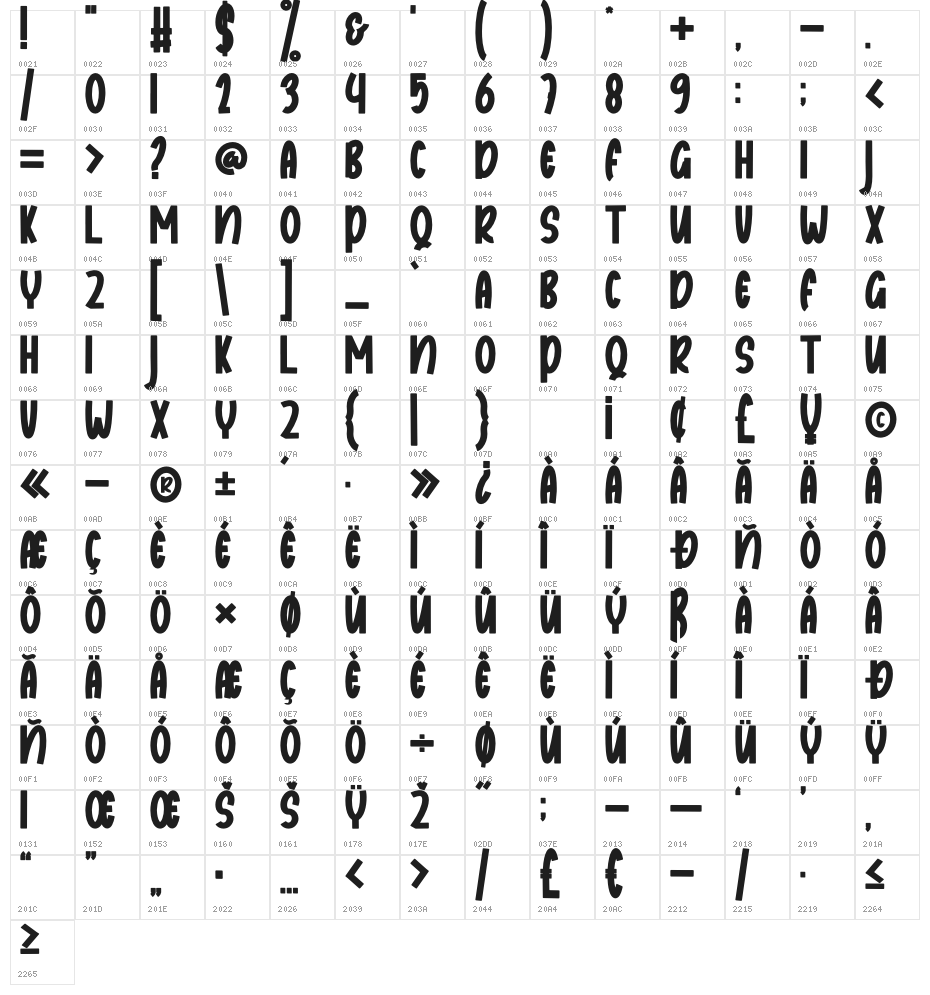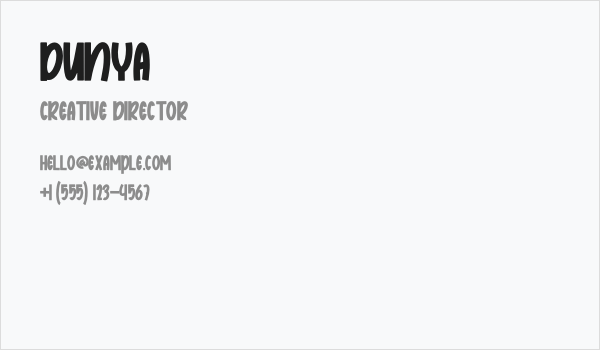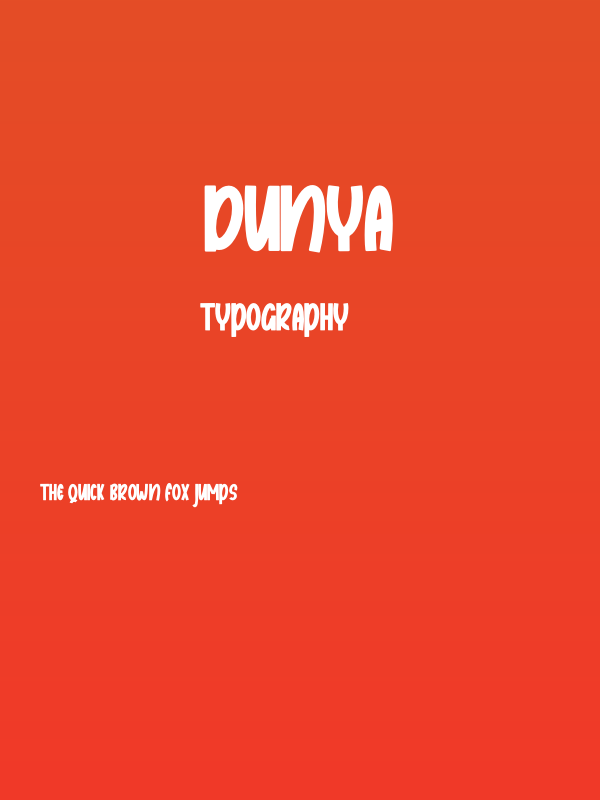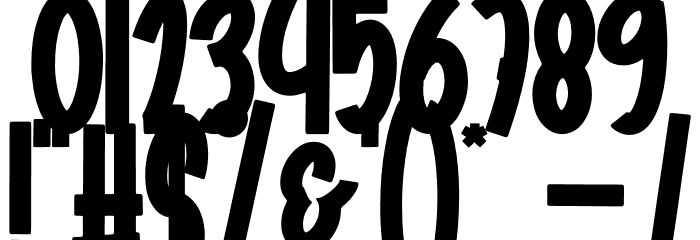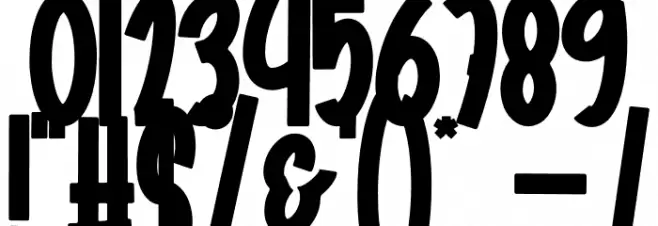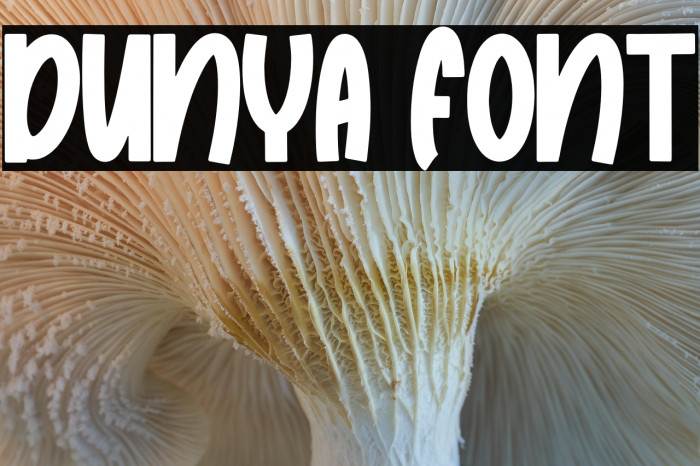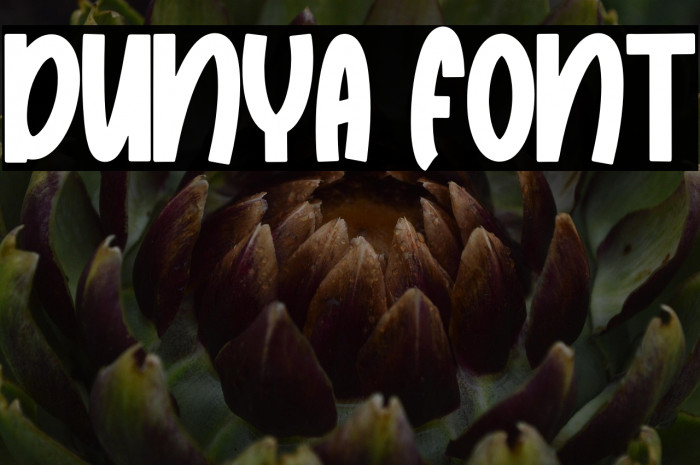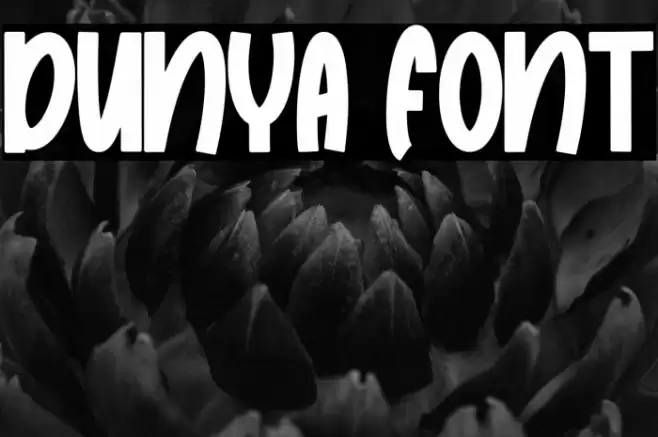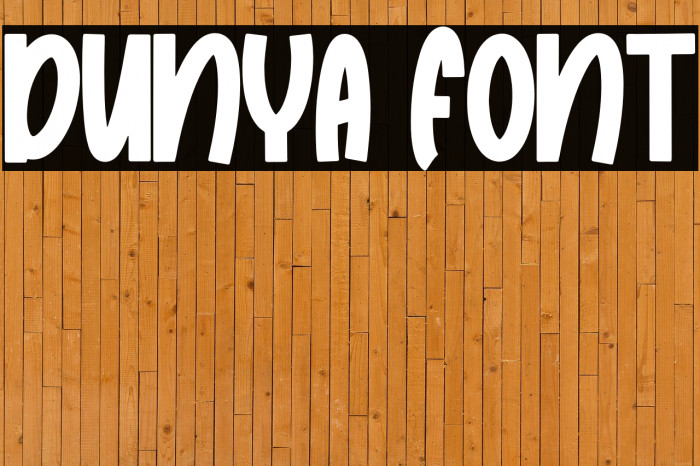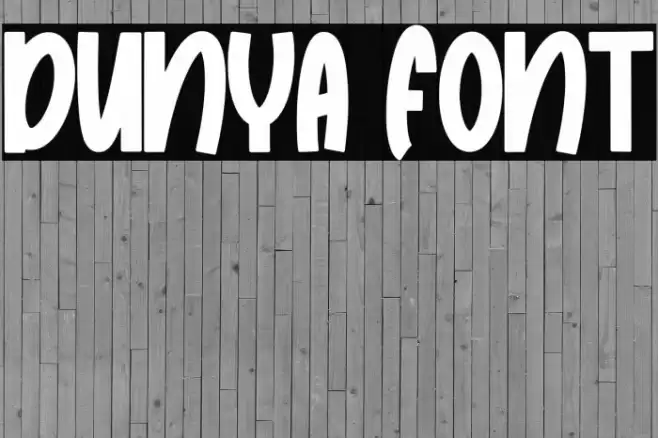
Dunya Font
Dunya Description
This font features a bold and playful design with thick, rounded strokes that give it a lively and energetic appearance. The characters are slightly condensed, creating a compact look that is both modern and eye-catching. The uppercase and lowercase letters maintain a consistent style, with a slight slant that adds a dynamic feel. The numerals and special characters are equally bold, ensuring readability and uniformity across all text. This font is perfect for projects that require a fun and engaging aesthetic.
| Width | Condensed |
| Proposed Projects | Ideal for children's books, playful branding, posters, and social media graphics. |